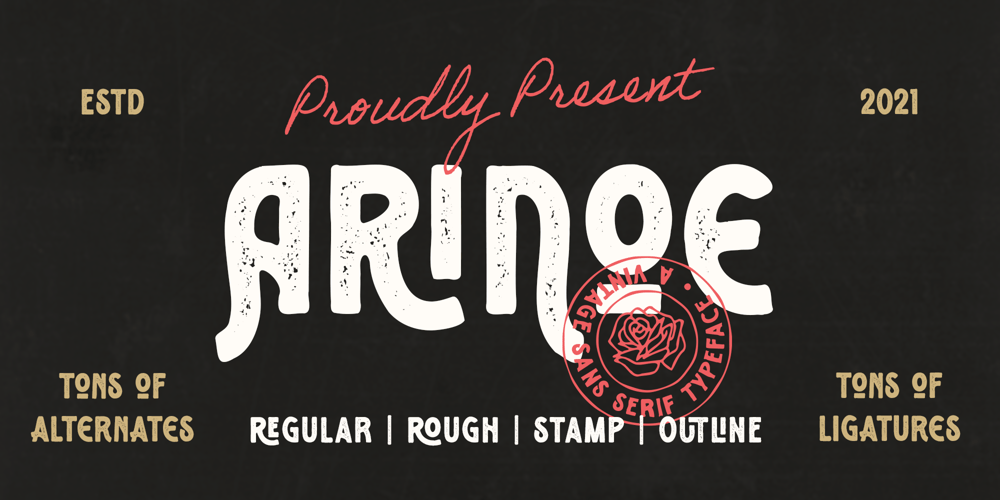
Arinoe Font Family was designed by Azzam Ridhamalik and published by Azzam Ridhamalik. Arinoe contains 4 styles and family package options. Arinoe is a cool display font that embodies uniqueness and authenticity in every character. Get inspired by its rustic feel, and use it for your lovely creative projects!FEATURES : Uppercase Lowercase Number Punctuation Multilingual PUA Encode Opentype